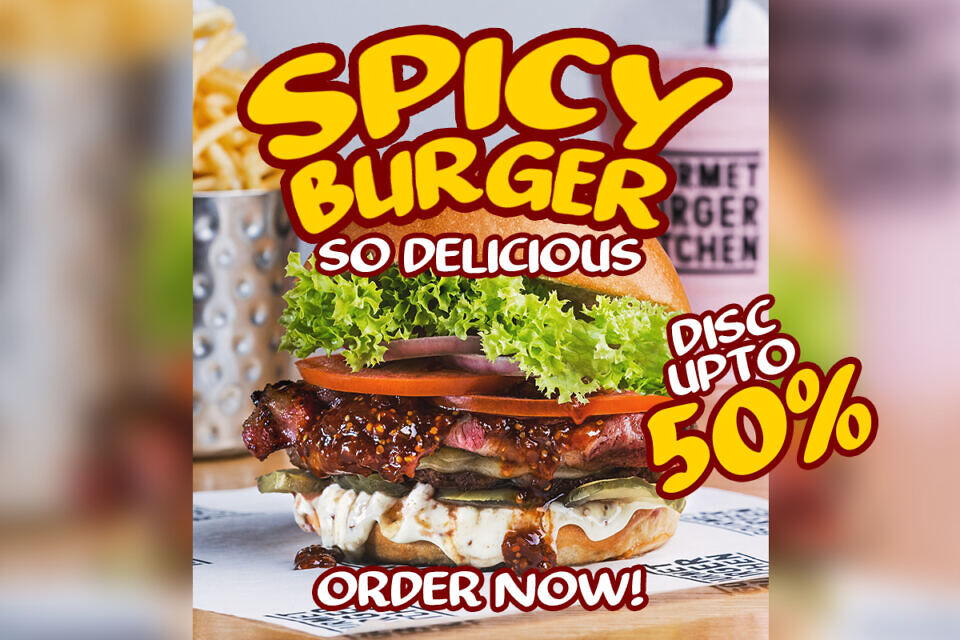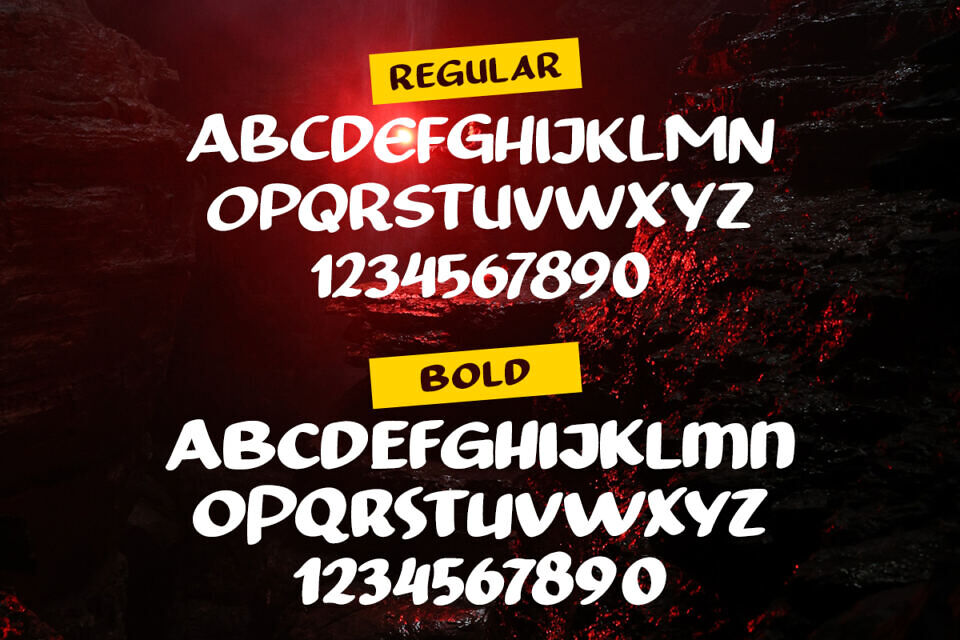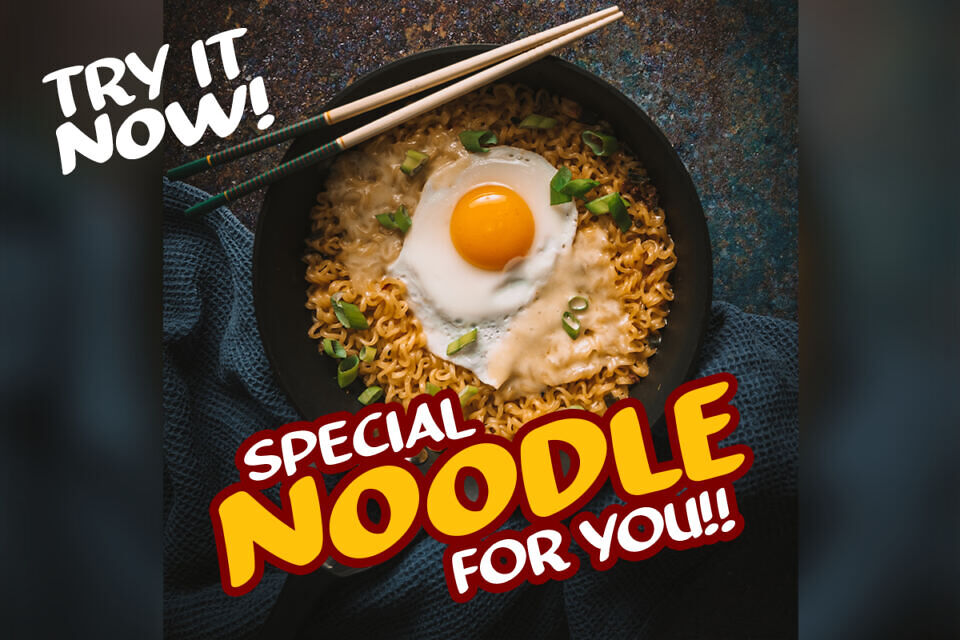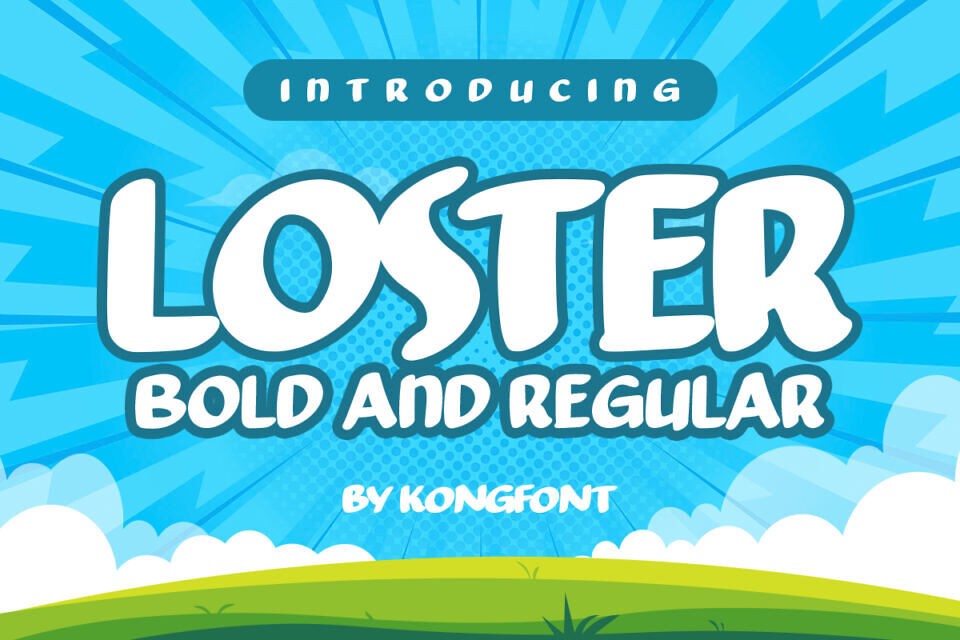
Loster Font
Loster Modern Display Font is a clean and simple font with a very minimalistic style. You can use this font as a digital and print font, such as for magazines, posters, and flyers.
You can also use Loster Font for branding purposes, such as creating logos or taglines for brands, brand packaging, and advertising. Some examples of products include; business cards, invitations, and placemarks.